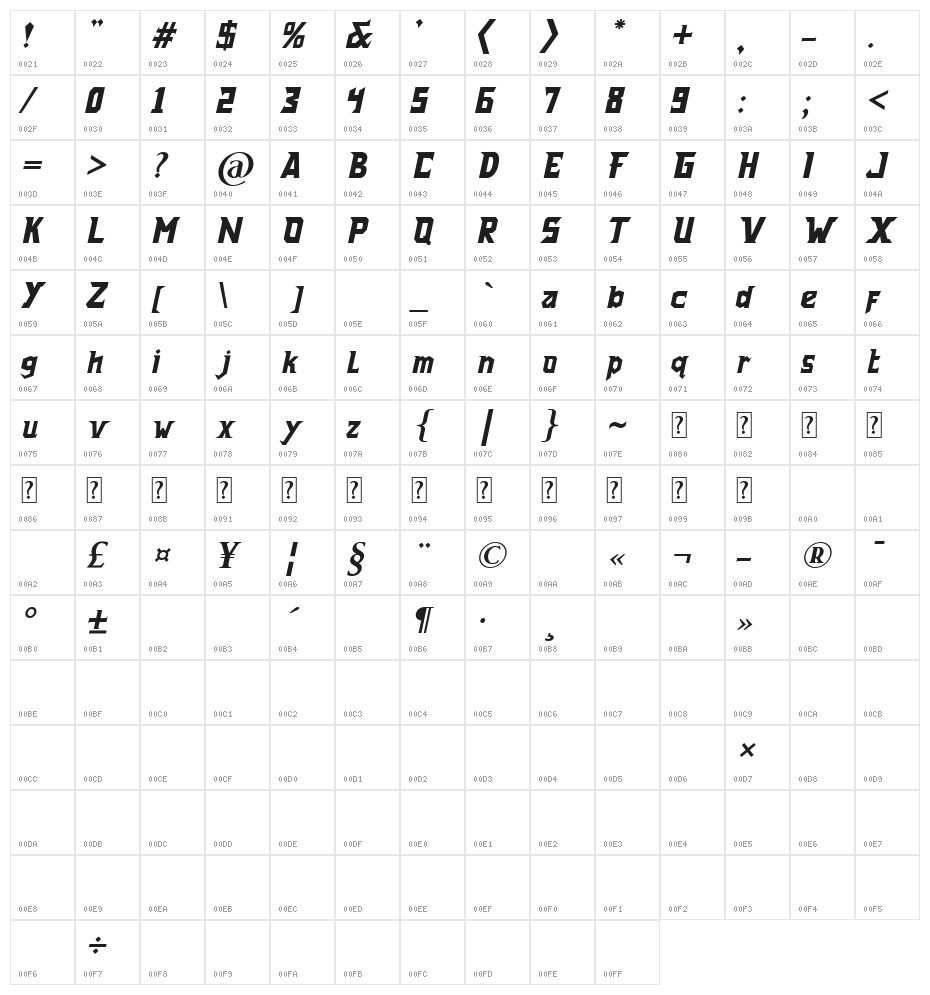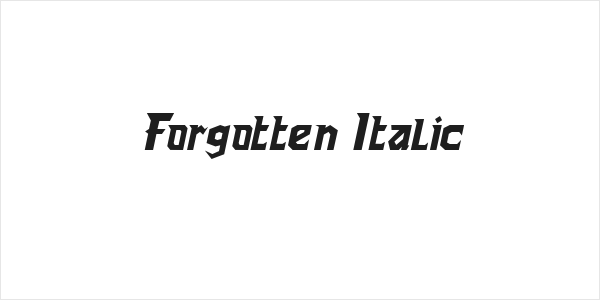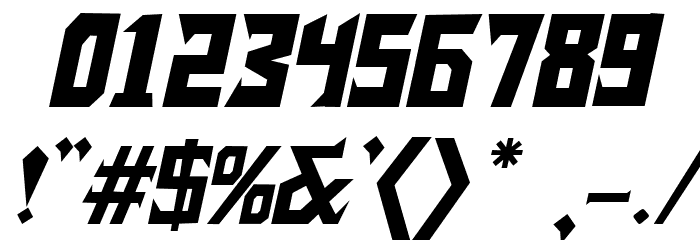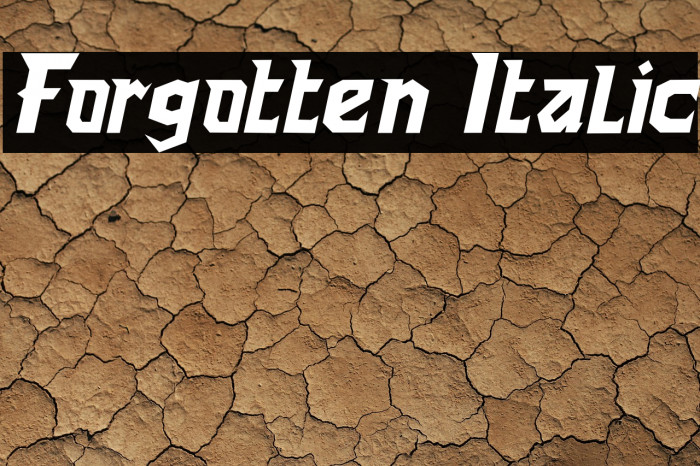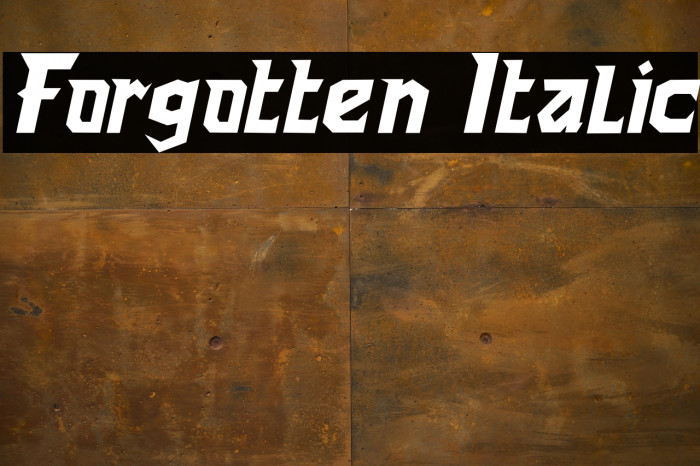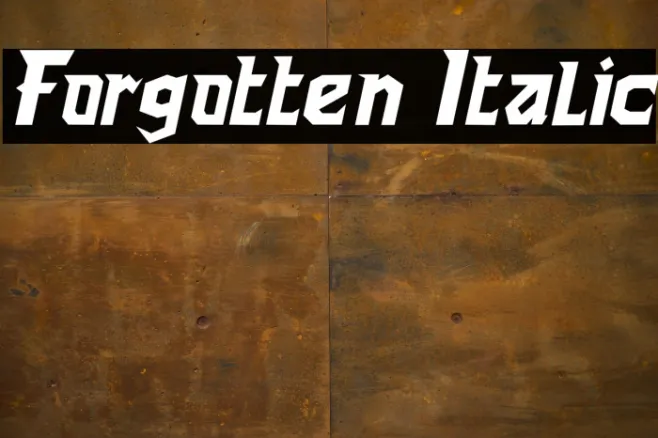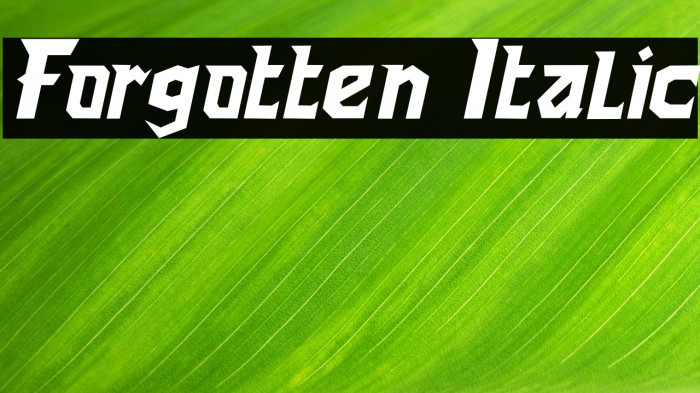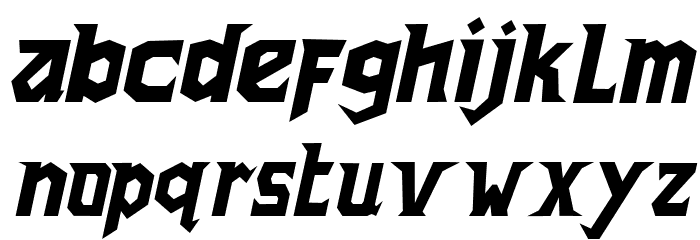
Forgotten Italic Font
Forgotten Italic Description
This font features a bold, italicized style with sharp, angular edges that give it a dynamic and energetic appearance. The uppercase and lowercase letters maintain a consistent slant, enhancing the italic effect. The numbers and special characters follow the same angular design, ensuring uniformity across all characters. The font's boldness and unique style make it stand out, suitable for attention-grabbing designs. Its geometric shapes and sharp lines convey a sense of modernity and strength, making it ideal for projects that require a bold statement.
| Proposed Projects | Ideal for sports branding, dynamic posters, video game titles, and edgy graphic designs. |